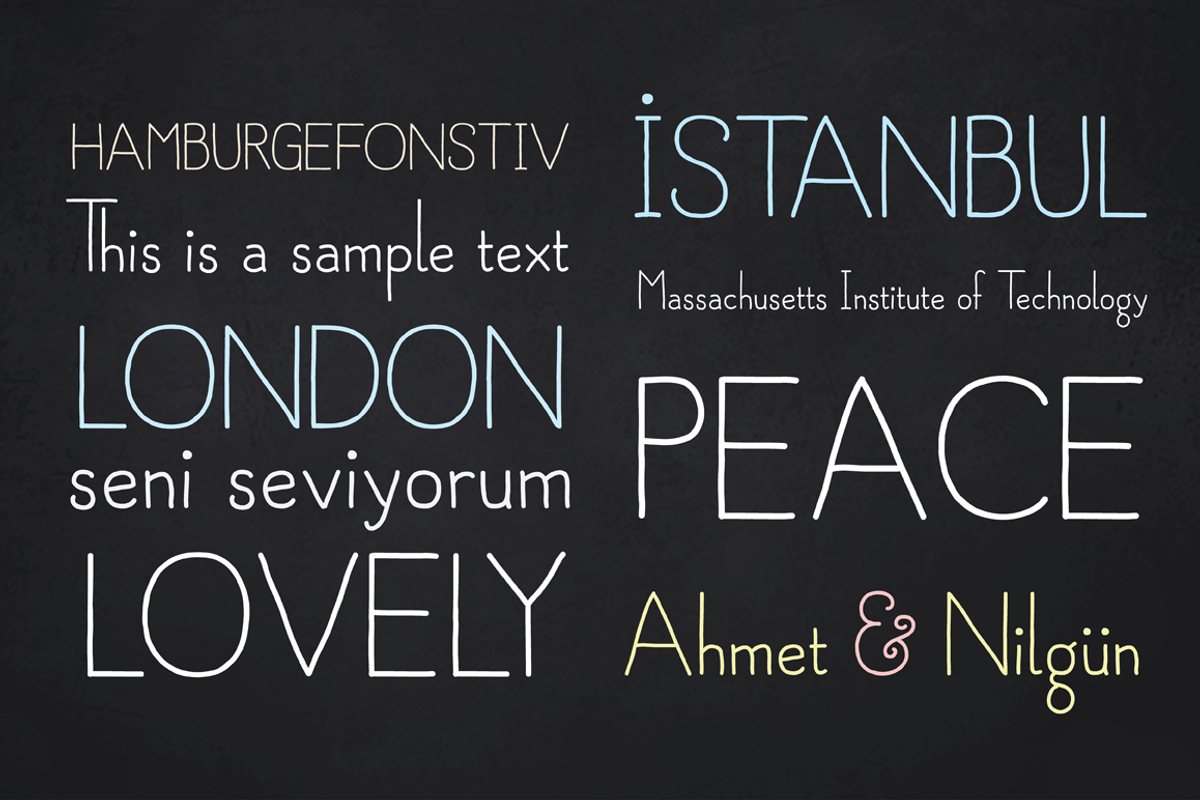
Minik - Cute Font Family
Minik - Cute Font Family by Ahmet Altun is a font selected for branding, posters, packaging, typography.
- While the capital letters have normal sizes, the lowercase letters are smaller than the common form in the vertical axis to have a cute view
- The Minik Font Family has a few ornaments and stylistic alternates.
- Minik Regular
- Minik Bold
Minik - Cute Font Family by Ahmet Altun fits naturally into Branding, posters, packaging, typography.